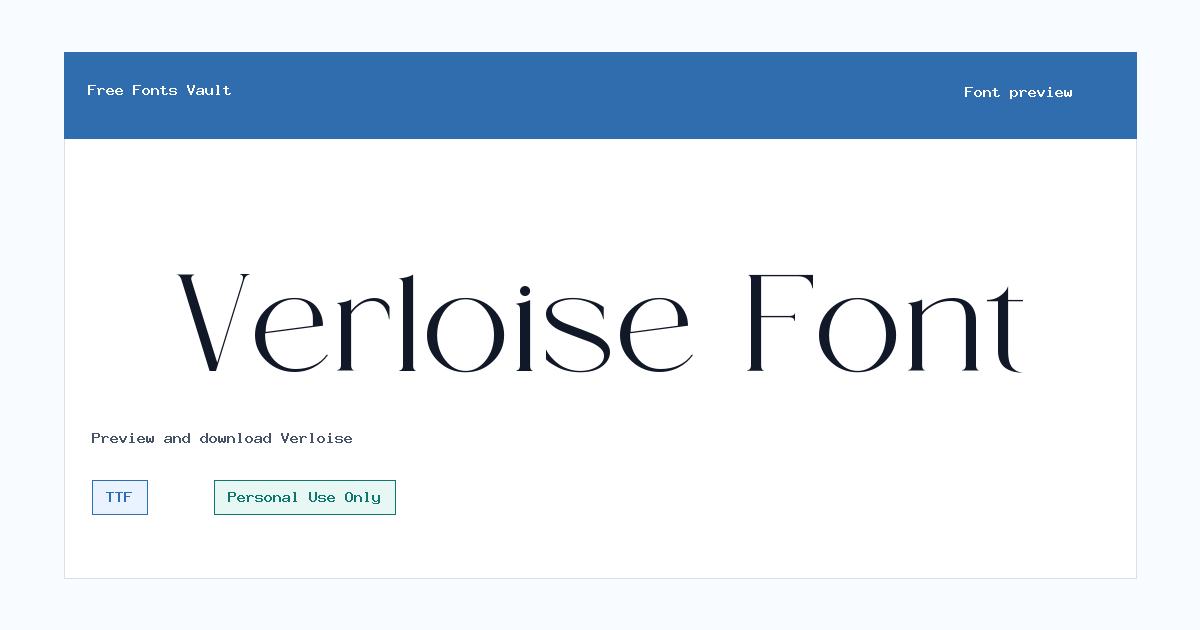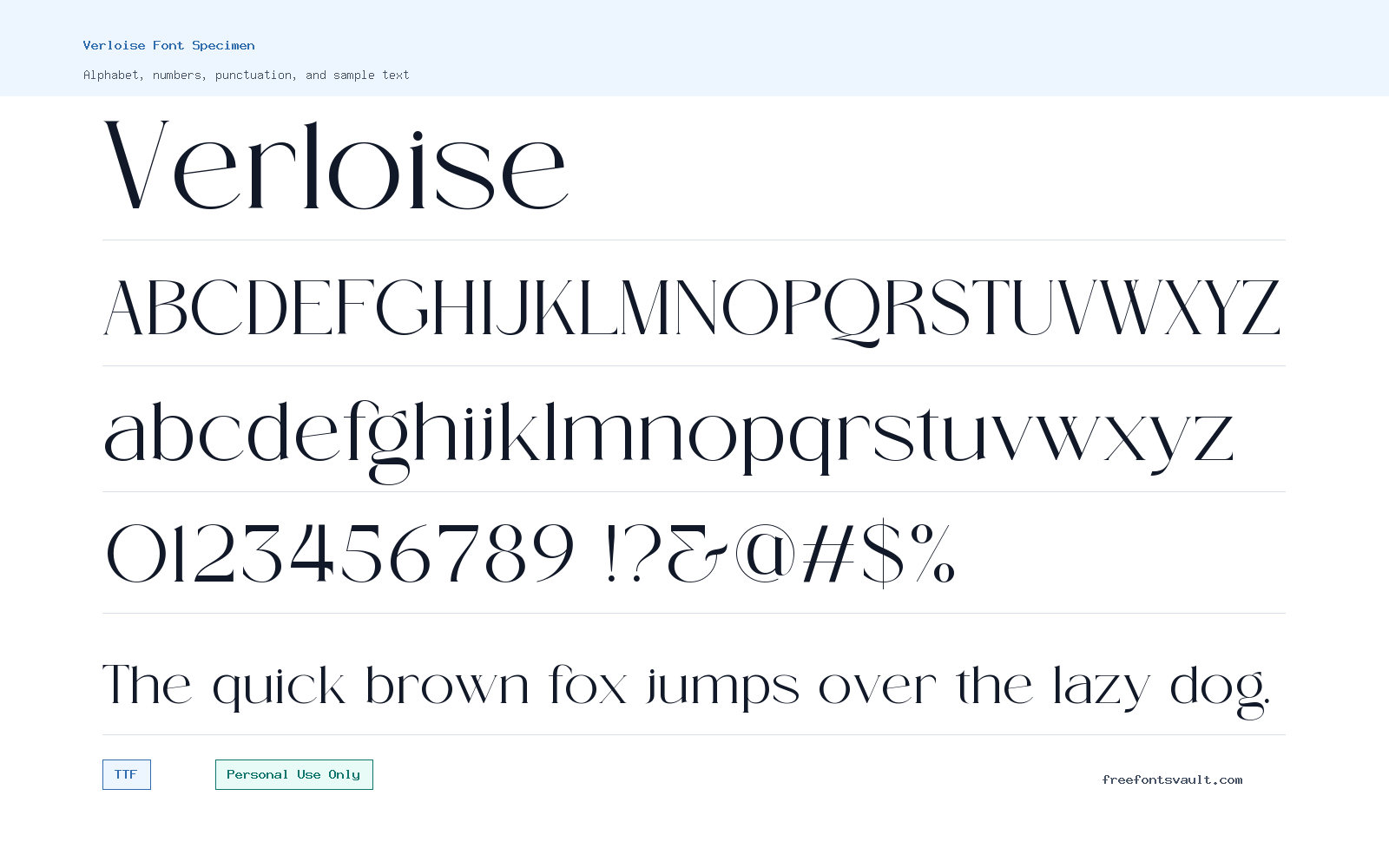
Verloise
Verloise is a serif font with a stylish display feel, suited to projects where the text needs to look more refined than a standard body typeface. It works best in short, visible settings such as titles, logos, posters, invitations, social graphics, and branding drafts.
Verloise is offered as a regular-weight serif font for personal-use projects. Its character comes from the contrast and shape you expect from a decorative serif: it can give words a polished, editorial look without needing multiple weights or styles. Because the family information points to one regular style, it is best treated as a display font rather than a full text system. Use it where a few words need personality, such as a brand name, cover title, boutique label, quote graphic, event heading, or hero section in a web mockup.
For design work, Verloise should be tested at the exact size and wording you plan to use. Serif display fonts can look elegant in large type but may lose clarity when used too small, especially in long paragraphs, menu labels, or dense mobile layouts. Try it first in the preview tool with uppercase words, mixed-case names, and the punctuation your project needs. If you are designing a logo concept, check letter spacing carefully; a little extra tracking can help decorative serif shapes breathe, while too much spacing may weaken the wordmark. For posters and social graphics, keep the layout simple so the font remains the focus rather than competing with busy images or heavy textures.
• Regular style with normal weight, suitable for headings, titles, and short display text.
• Serif display character that can support elegant logo drafts, invitation layouts, packaging concepts, and editorial-style graphics.
• Best used for short text rather than long reading passages, especially at small sizes.
• Logo concepts and wordmark mockups
• Poster titles and event graphics
• Wedding, fashion, beauty, or boutique-style invitations
• Editorial headers and magazine-inspired layouts
• Social media quote cards and announcement designs
• Packaging mockups, labels, and product presentation drafts
• Website hero headings and landing-page design previews
Use Verloise for short, high-impact text and pair it with a quieter sans serif or simple serif for supporting copy. In a logo or poster, let Verloise handle the main name or headline, then use a neutral companion font for dates, descriptions, prices, navigation, or body text. For web design mockups, the WOFF file is useful for previewing how the font might appear in a browser, while TTF and OTF files are common choices for desktop design apps. Always test spacing, accents, punctuation, and number styles before committing it to artwork.
What kind of font is Verloise?
Verloise is a serif font with a display-friendly style. It is better for headings, logos, posters, and decorative short text than for long paragraphs.
Is Verloise good for body text?
It is not the safest choice for long body text. Use it for names, titles, headlines, and short phrases, then pair it with a clean, readable font for paragraphs and smaller information.
What should I pair with Verloise?
Pair Verloise with a simple sans serif for a clean contrast, or with a restrained serif if you want a more classic layout. Keep the companion font quiet so it does not compete with the main display text.